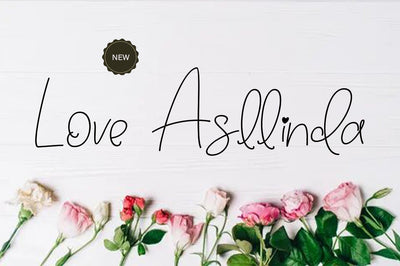
Love Asllinda
Love Asllinda is a dainty, thin lettered script font. Fall in love with its incredibly versatile style and use it to create gorgeous wedding invitations, beautiful stationary art, eye-catching social media posts, and much more!